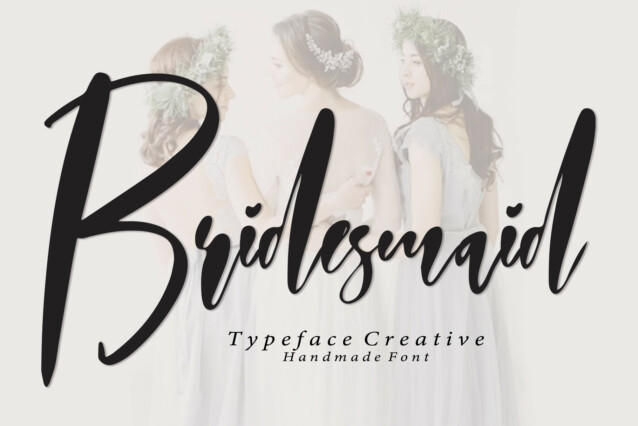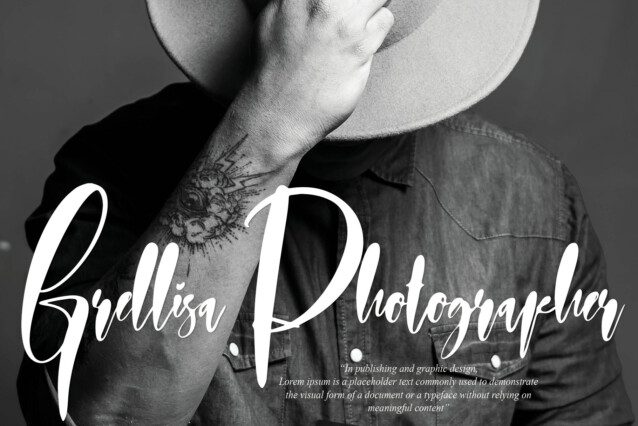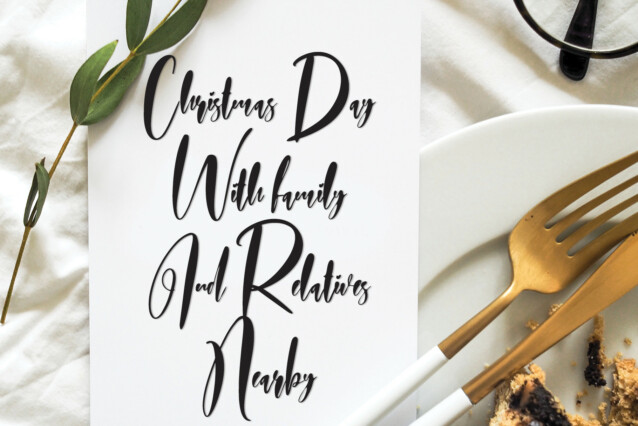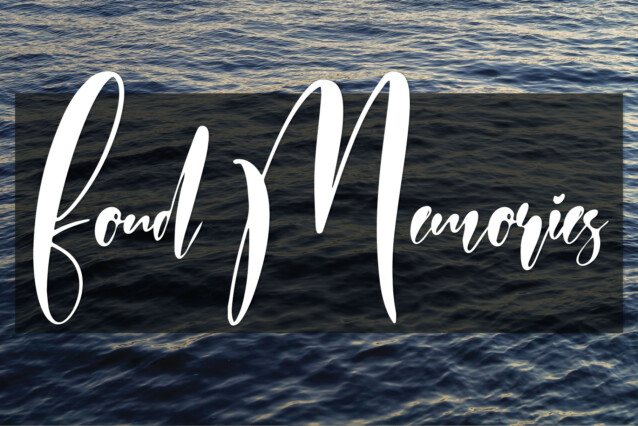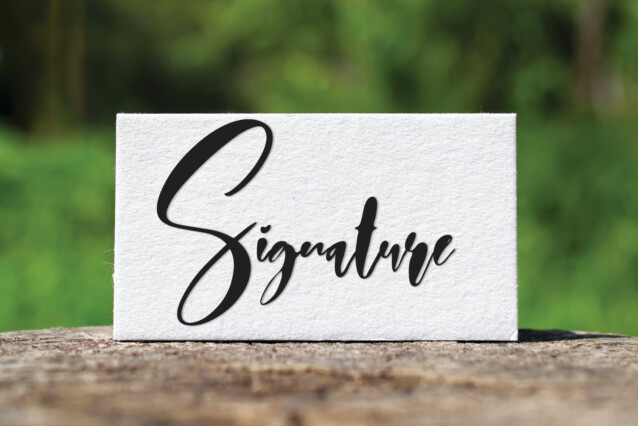
Bridesmaid Script Font
Bridesmaid Script Font feels equally charming and elegant. It looks stunning on wedding invitations, thank you cards, quotes, greeting cards, logos, business cards, and every other design which needs a handwritten touch.